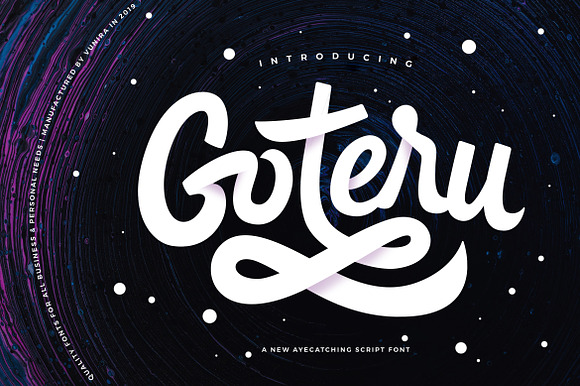
Goteru Eyecatching Script Font
Goteru Eyecatching Script Font by Vunira is a font selected for branding, posters, packaging, typography.
Why Goteru Eyecatching Script Font is worth a look
Goteru Eyecatching Script Font by Vunira fits naturally into Branding, posters, packaging, typography.